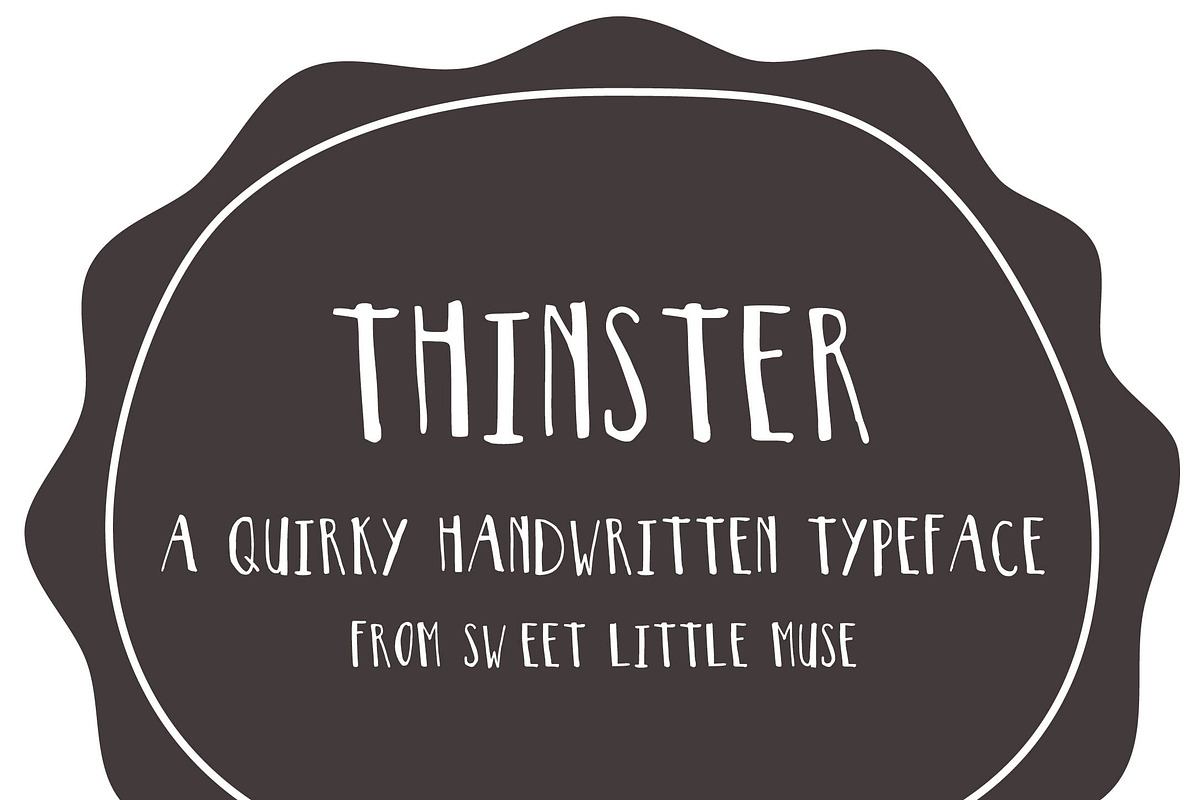
Thinster Typeface – Handwritten Font Free Download is an elegant, thin, and modern handwritten typeface that combines grace and style. With its flowing, delicate strokes and minimalistic charm, Thinster is perfect for projects that need a refined, personal touch, such as invitations, branding, social media graphics, and lifestyle design.
The thin, flowing letterforms evoke the feeling of a delicate handwritten note, making it ideal for projects that require a touch of sophistication and creativity. Whether you're designing for a boutique, event invitations, or personalized branding, Thinster brings beauty and elegance to your typography.